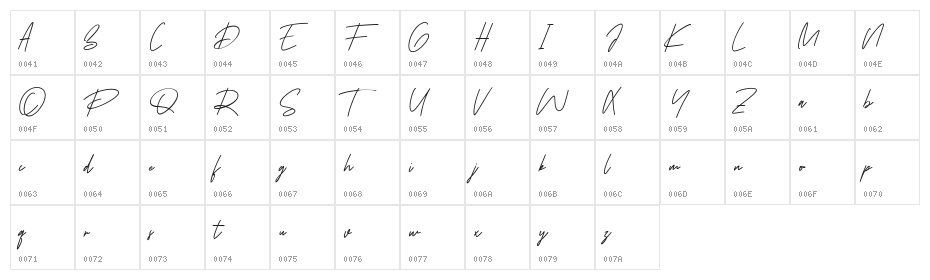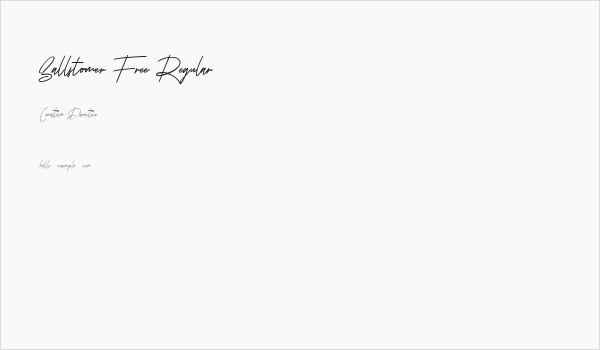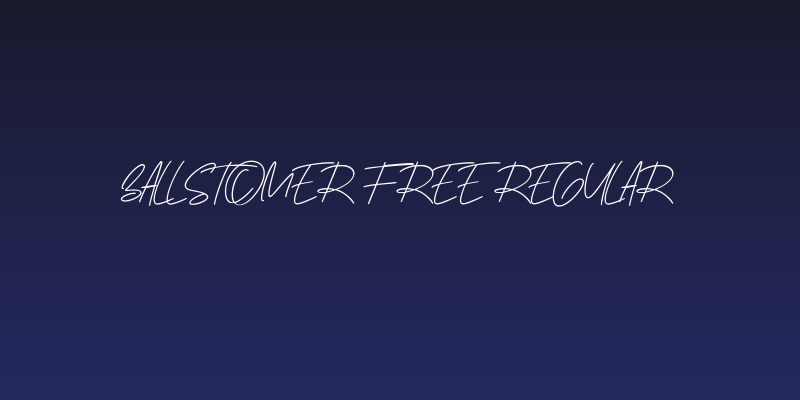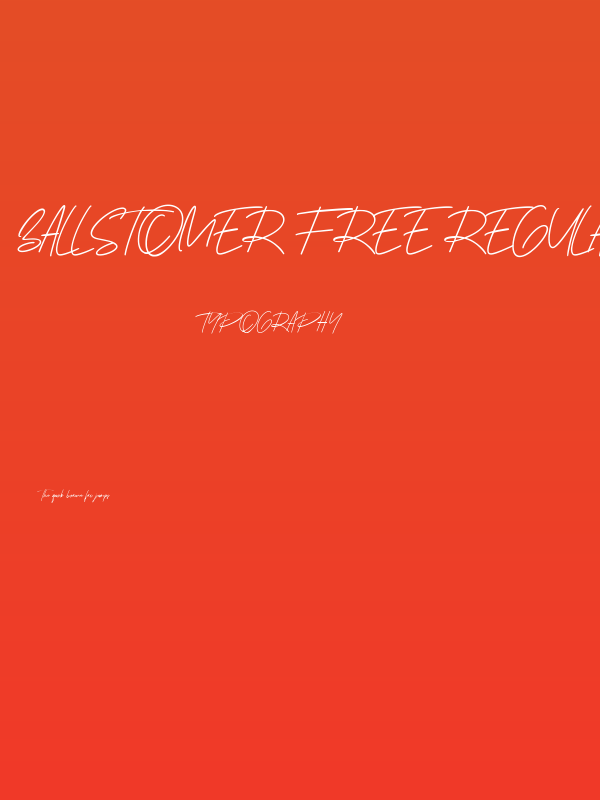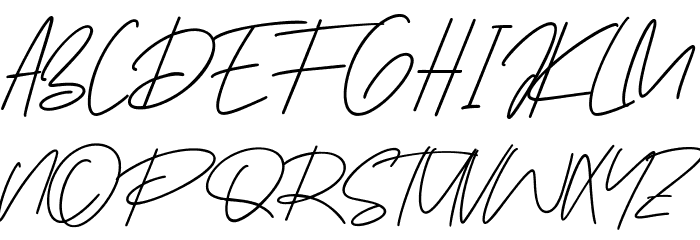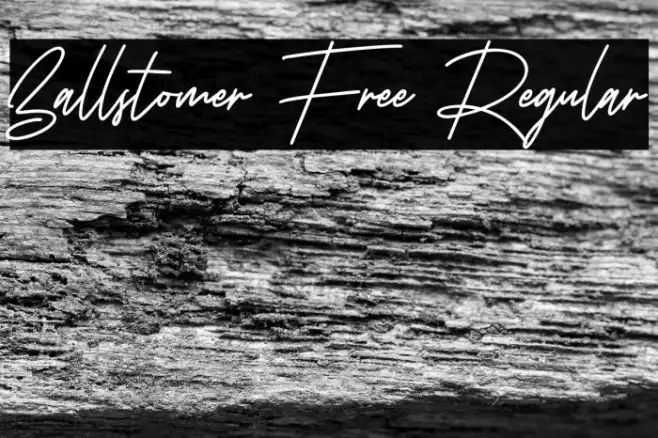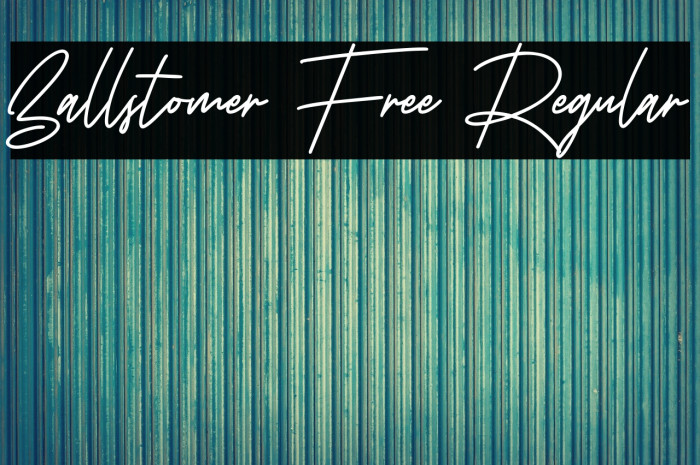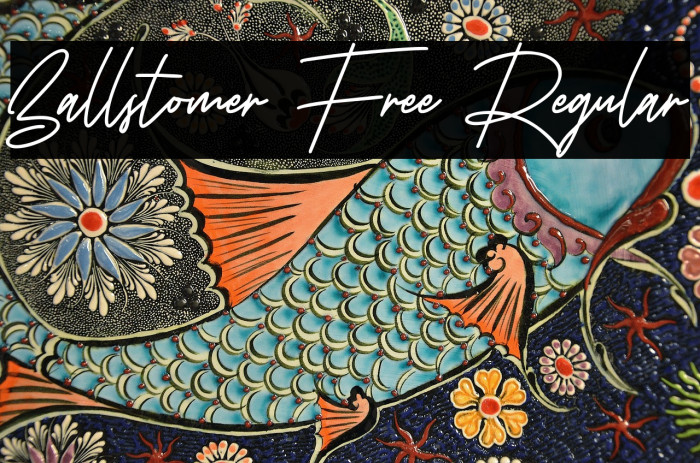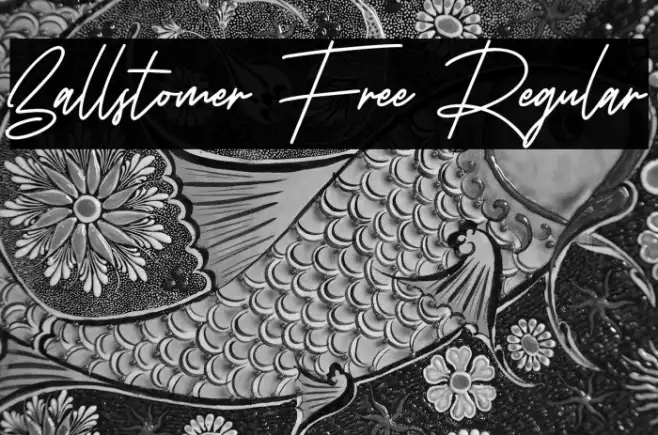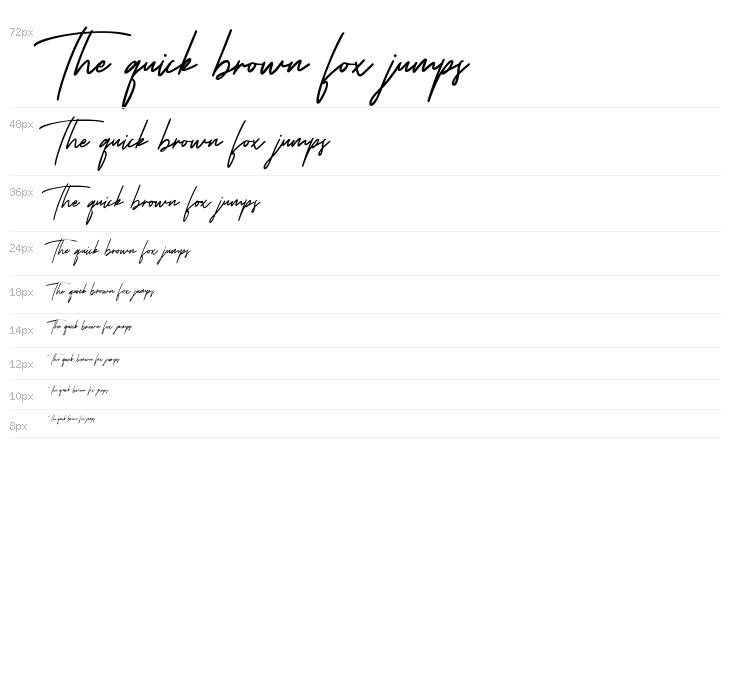
Ballstomer Free Regular Font
Ballstomer Free Regular Description
This font features a dynamic and flowing script style, characterized by its elegant and fluid letterforms. The uppercase letters are tall and slender, with a slight slant that adds a sense of motion and grace. The lowercase letters maintain a cohesive style, with smooth curves and consistent stroke widths that enhance readability. The overall design exudes a sense of sophistication and modernity, making it suitable for a variety of creative applications. The font's unique style is perfect for projects that require a personal touch, such as invitations, branding, and artistic designs.
| Use Case | Logos, Invitations, Artistic designs |
| Proposed Projects | Ideal for invitations, branding, artistic designs, and any project requiring a personal touch. |